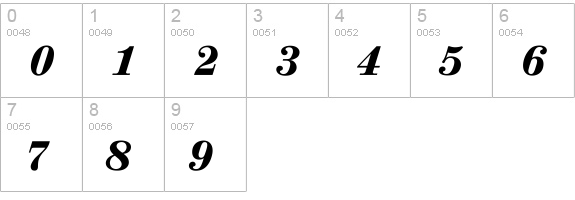
Ivalencia ExtraBold is an extra-heavy, attention-grabbing variant in the Ivalencia typeface family \xE2\x80\x94 well suited to high-impact headlines, posters, and bold branding.
Introducing Ivalencia ExtraBold, a powerful and captivating font that exudes confidence and elegance. This font is the epitome of boldness, with its strong and striking letterforms that demand attention. Its sleek and modern design makes it perfect for a wide range of projects, from eye-catching headlines to impactful logos. Ivalencia ExtraBold is more than just a font, it is a statement. Each character is meticulously crafted to convey a sense of power and authority, making it the ideal choice for those seeking to make a lasting impression. Whether you're designing a poster, creating a website, or crafting a brand identity, this font will elevate your work to new heights. One of the most appealing aspects of Ivalencia ExtraBold is that it is freely available to download at FontsMarket.com. This means that you can easily access and use this exceptional font without any cost. It's a fantastic opportunity to enhance your creative projects with a high-quality and visually striking typeface. With its clean lines, impeccable legibility, and versatile nature, Ivalencia ExtraBold is a true gem in the world of typography. It effortlessly combines modernity with timeless elegance, making it a must-have for any designer or creative enthusiast. Take your designs to the next level with this exceptional font, and let Ivalencia ExtraBold make a bold statement for you.